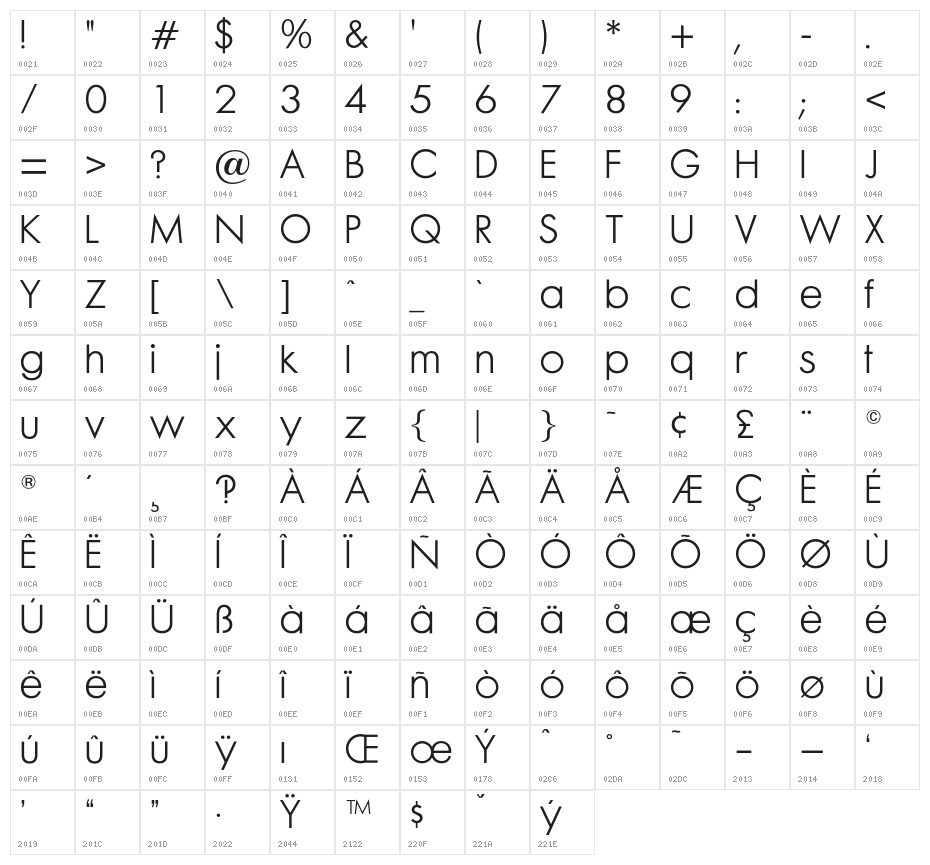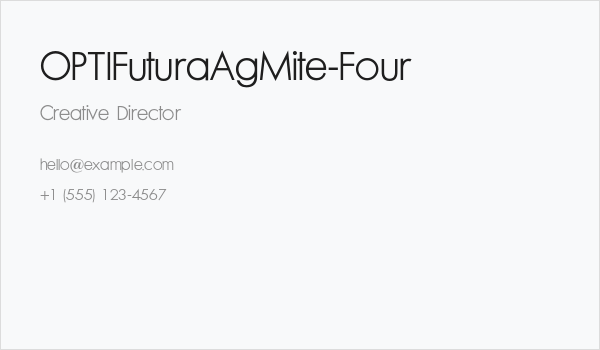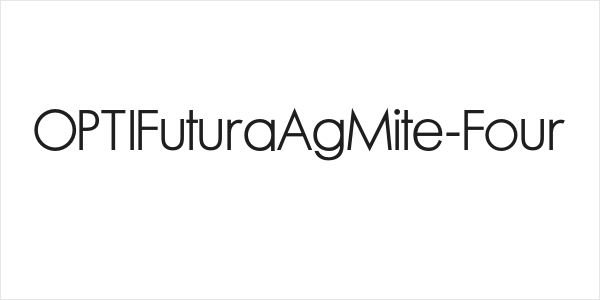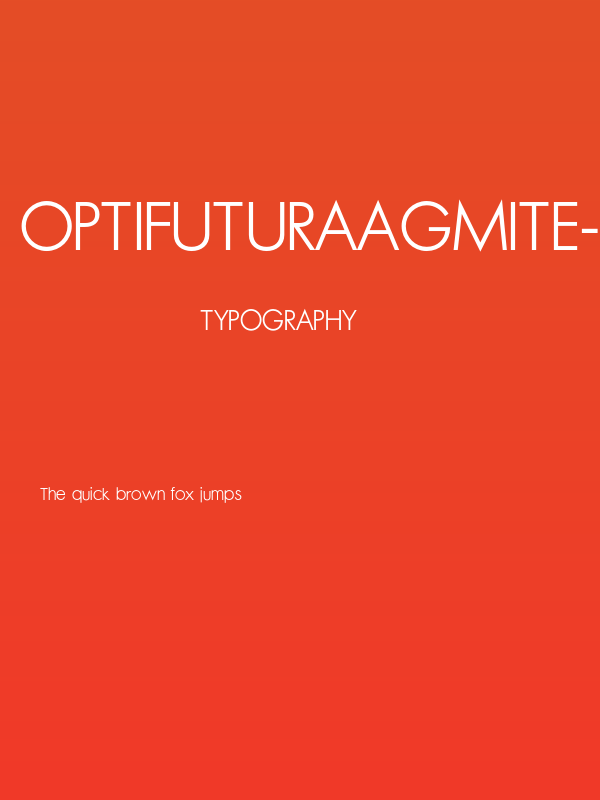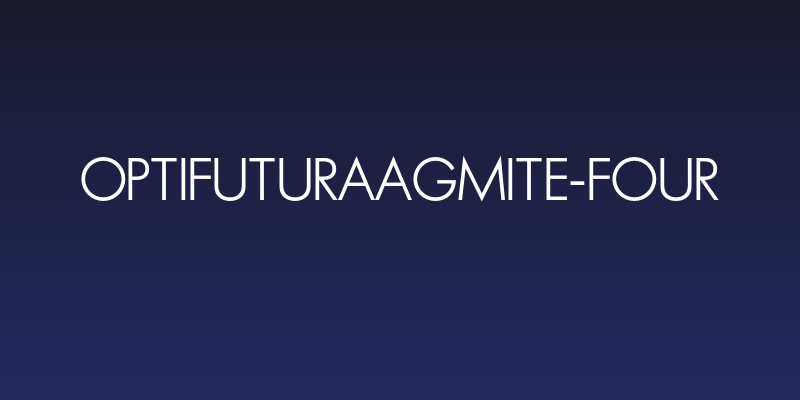
OPTIFuturaAgMite-Four Font
OPTIFuturaAgMite-Four Description
This font exhibits a clean, geometric sans-serif style with a modern aesthetic. The characters are well-balanced with uniform stroke widths, contributing to a harmonious and legible appearance. The uppercase letters are bold and commanding, while the lowercase letters maintain a consistent flow, enhancing readability. The numerals are clear and distinct, making them suitable for various applications. Special characters are designed with precision, ensuring they integrate seamlessly with the rest of the typeface. Overall, this font is versatile, offering a contemporary look suitable for both digital and print media.
| Proposed Projects | Ideal for branding, web design, advertising, and editorial layouts due to its clarity and modern appeal. |